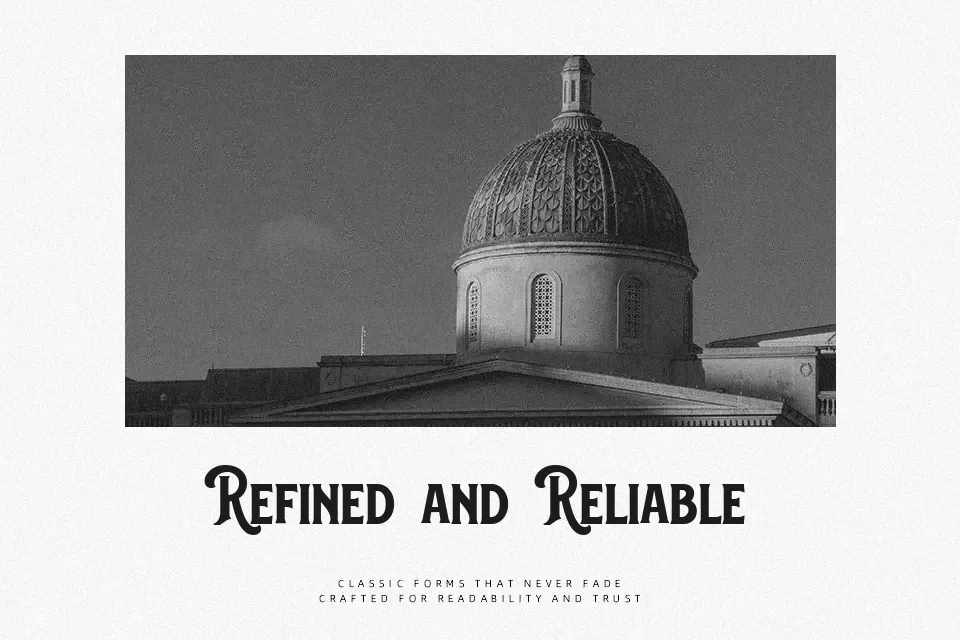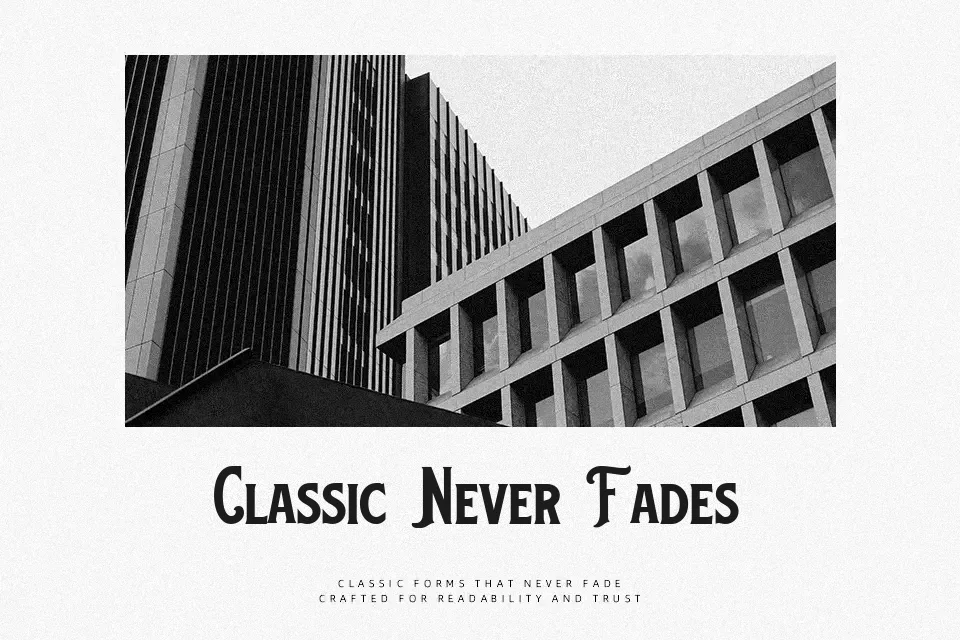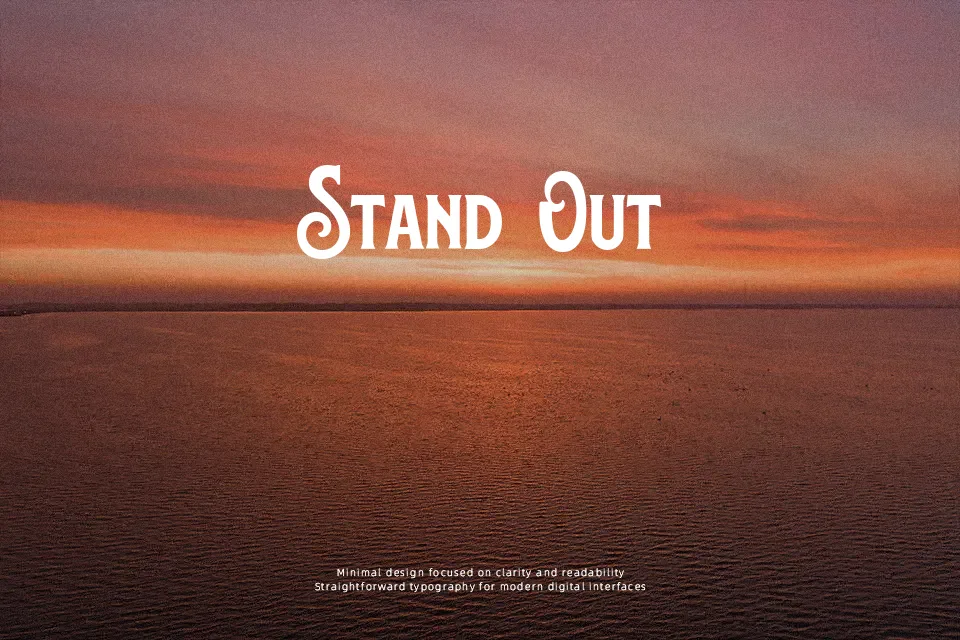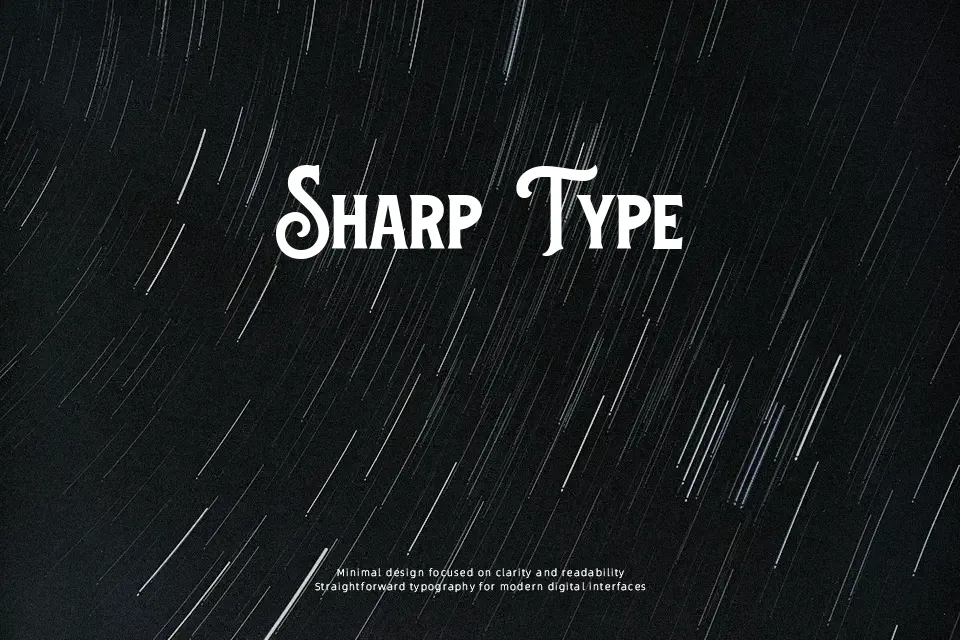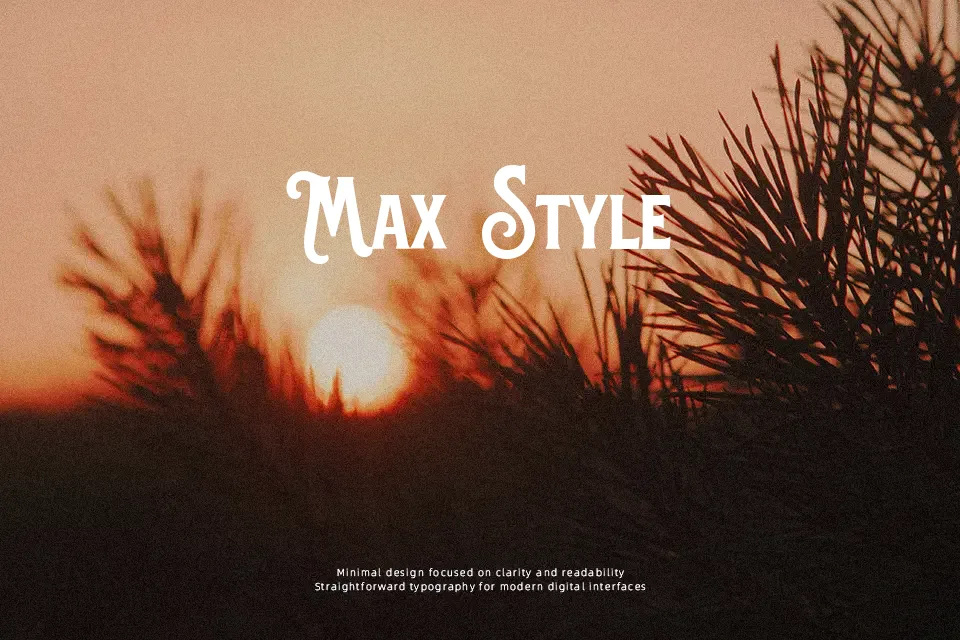
Blackford Font
Blackford presents a rugged, vintage serif style inspired by historical packaging, Victorian ornaments, and classic labels. Its characteristics feature prominent, edgy serifs and sturdy letterforms that command attention in large display settings. The font carries an undeniably old-world charm, blending dramatic angles with ornate detailing that establishes a retro atmosphere.
This typeface excels when applied to bold typographic headlines, heritage branding, artisan product labels, or specialized invitation suites. The distinct aesthetic brings authenticity to projects requiring a nostalgic touch. Conversely, the heavily stylized serifs and robust strokes hinder readability in long-form paragraphs or minimalist user interfaces. Blackford functions beautifully as a standalone statement piece but struggles when forced into subtle or secondary text roles.
Artisan product packaging
Heritage brand logos
Large editorial headlines
Vintage-themed event invitations
Long-form body copy
Minimalist modern UI design
Small corporate business cards
Perfect for branding, headline, and invitation, with a bold and decorative style.